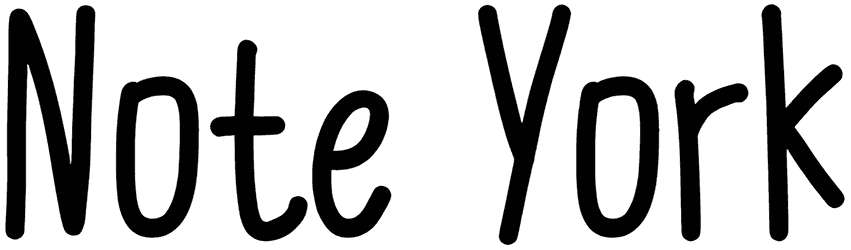
Note York Font
Designed byTera Asset Garage
First of all, it’s Note York, not New York, so there’s that. And secondly, are you seriously thinking about whether to download it or not? How can there even be a debate when so many of your travel postcards and holiday posters require something so friendly in such cute handwriting?
Are you going to find it useful in formal projects? We’re afraid not. But how about having fun? Sure, why not? That’s what this scrapbook font is meant for anyway.